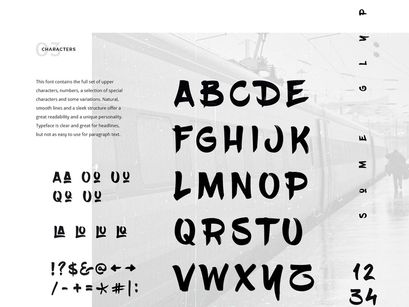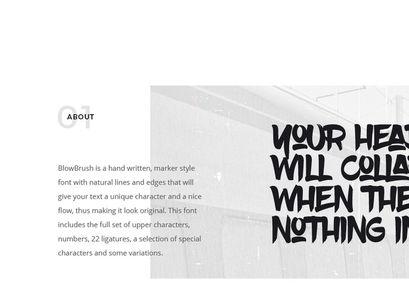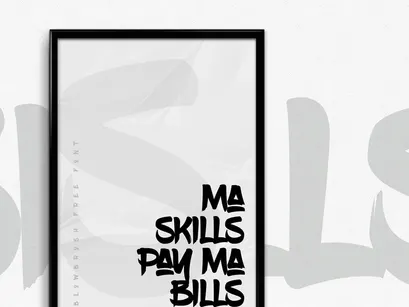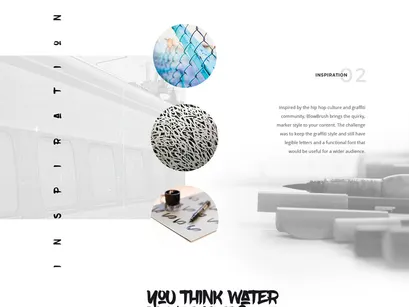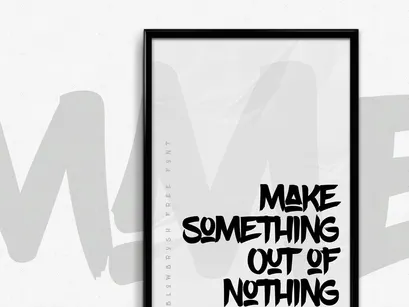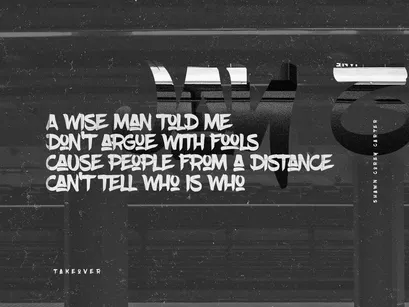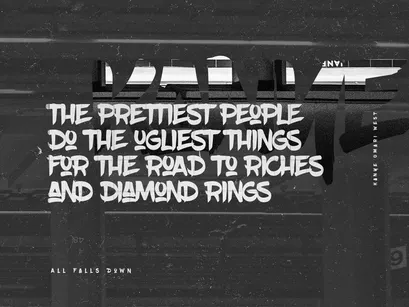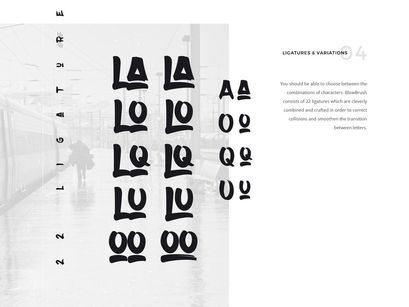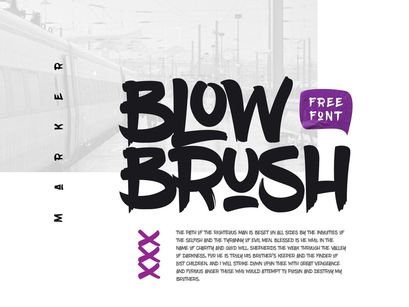
Blowbrush Font
Bold, quirky and free for download - Blow Brush is a handwritten marker style font inspired by the hip hop culture and graffiti community. Even though the main intention was to bring that street style to your content, the importance of font functionality was a top priority. The results are legible letters, clear type, a lot of variations and a font that is useful for a wider audience.
Features
• Font inspired by the hip hop culture
• 3000+ kerning pairs and 23 ligatures